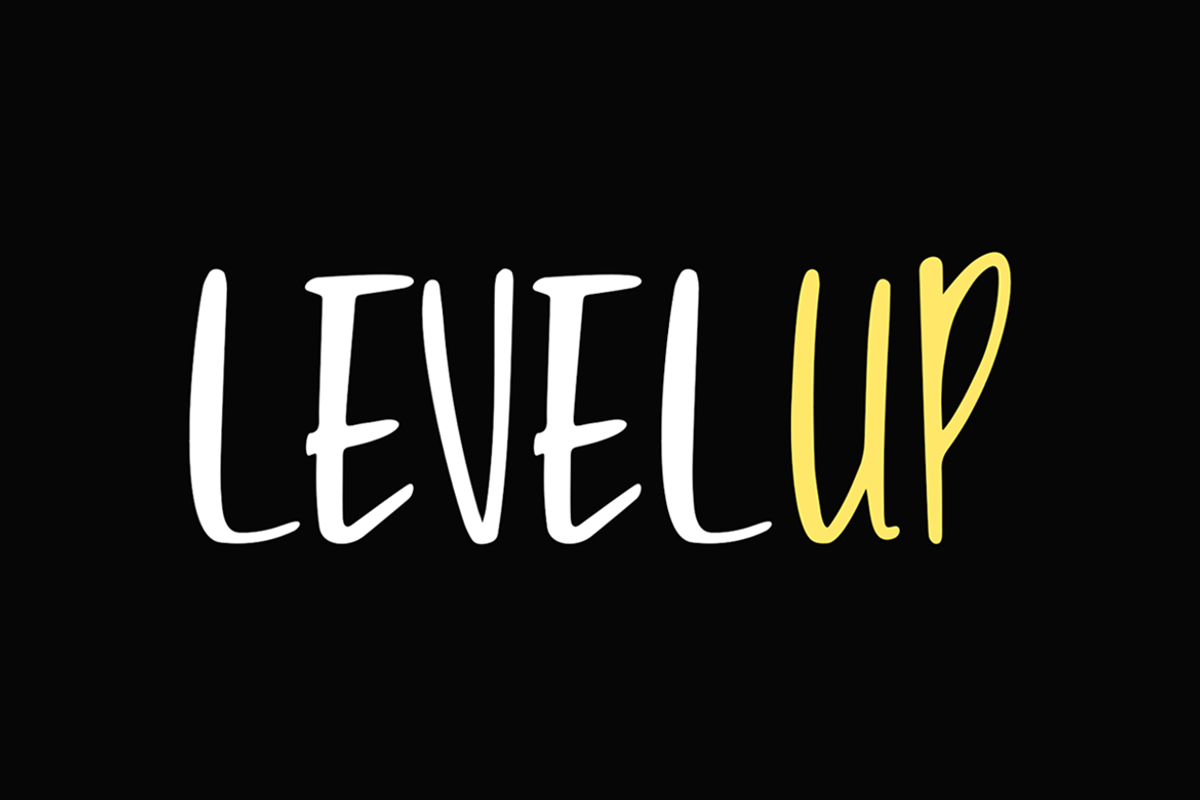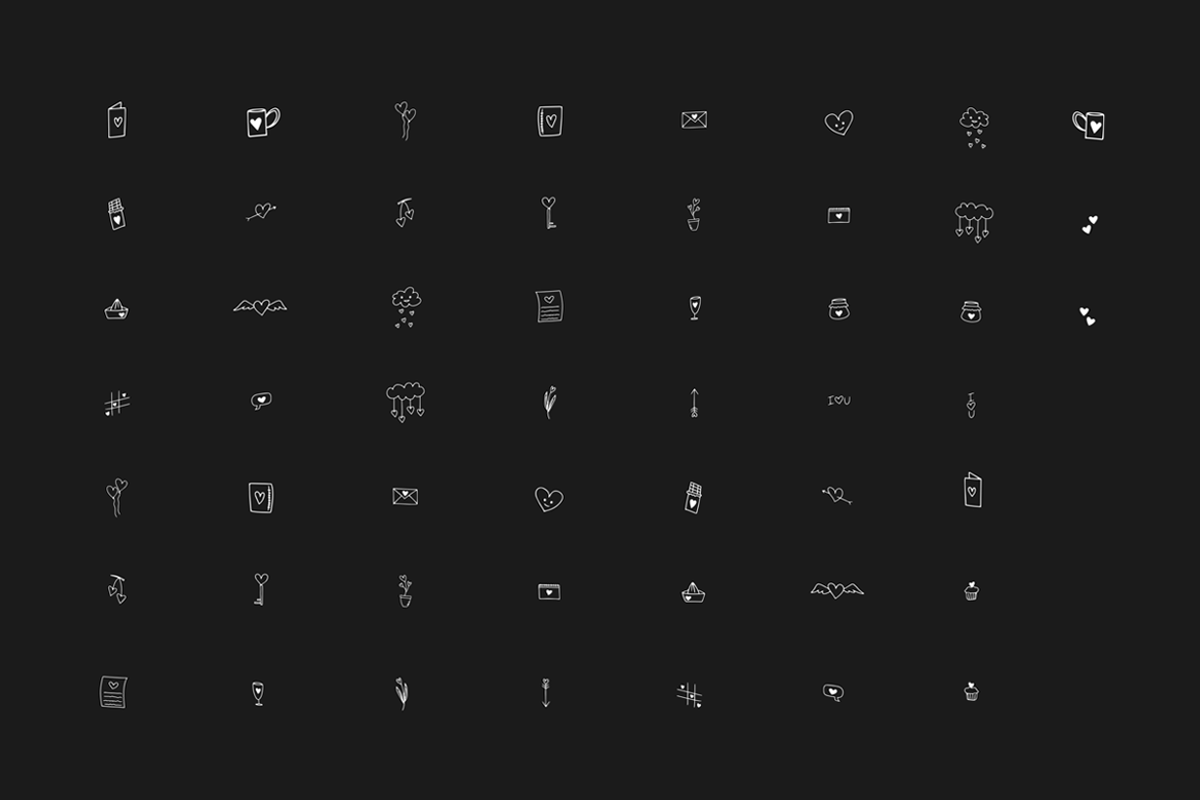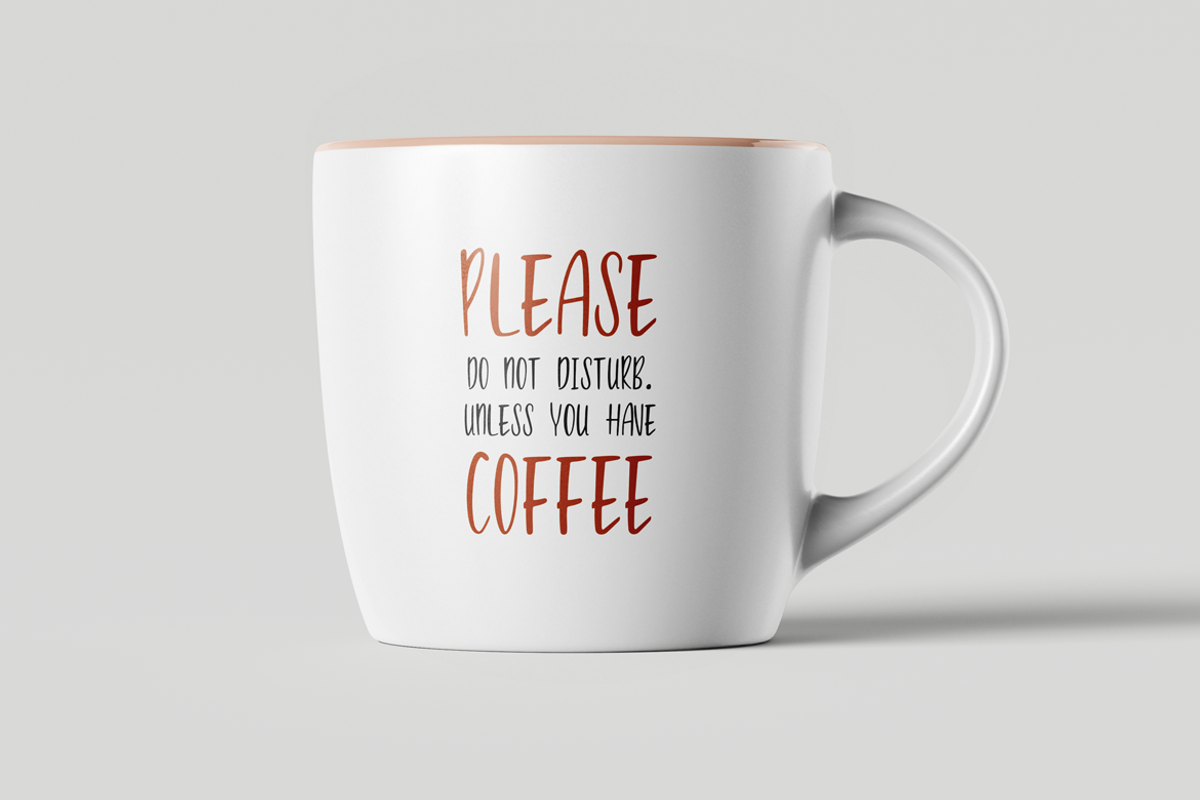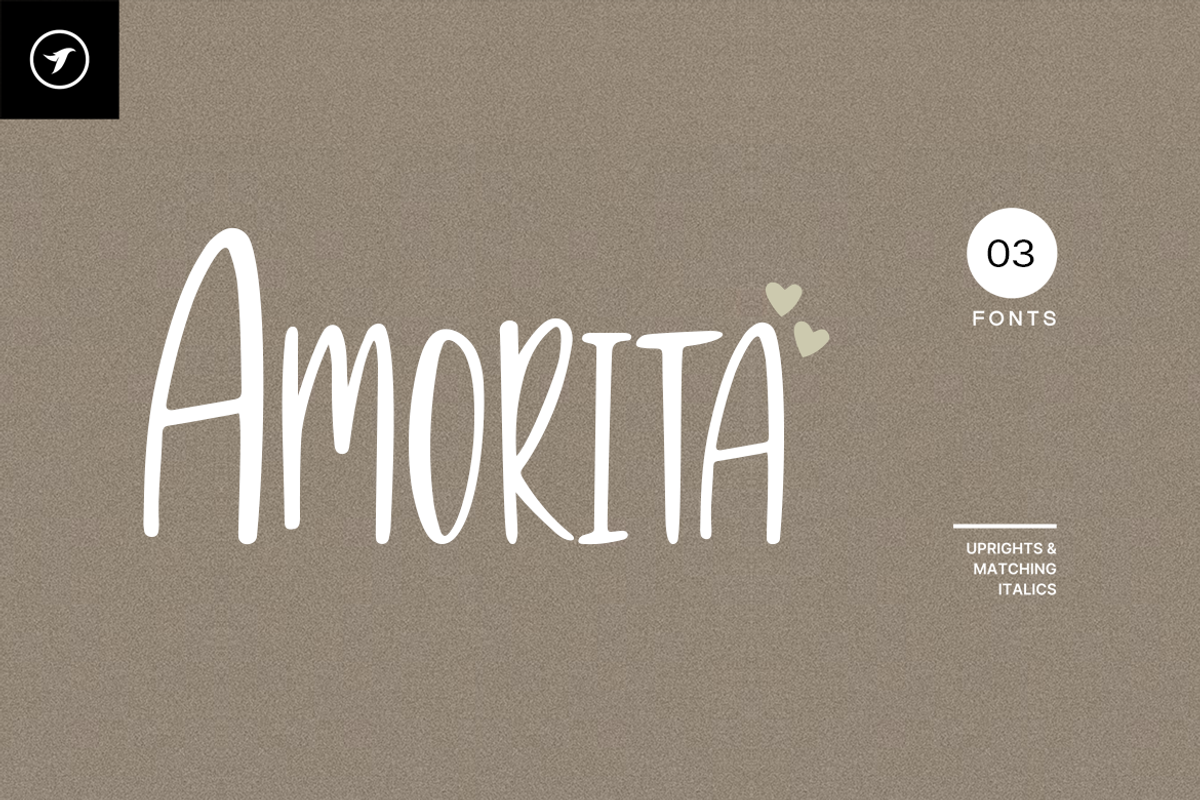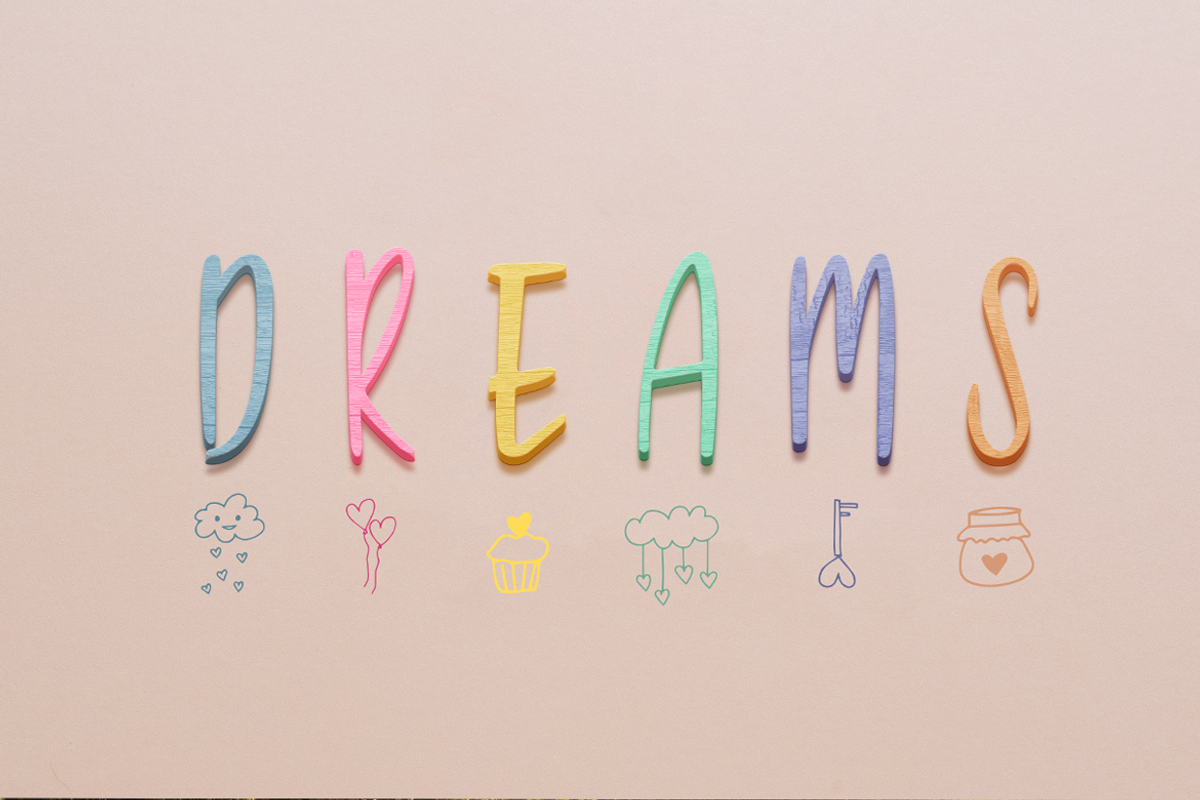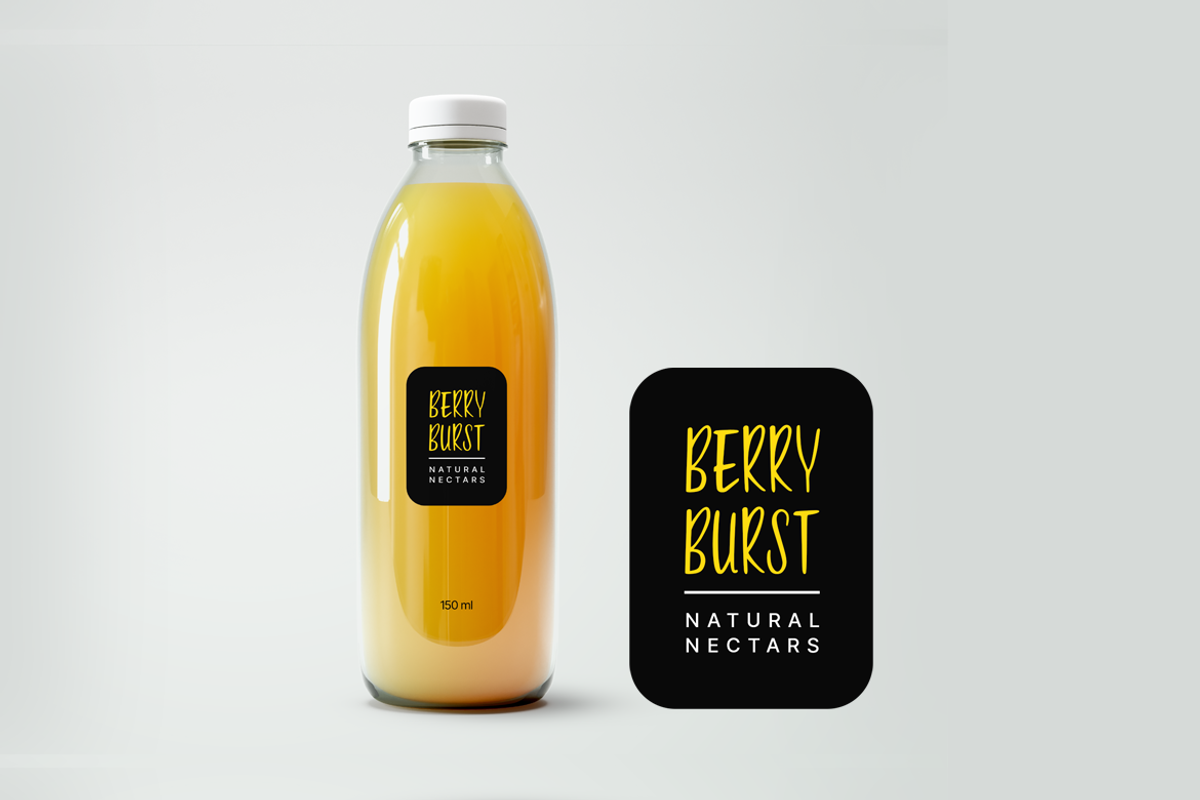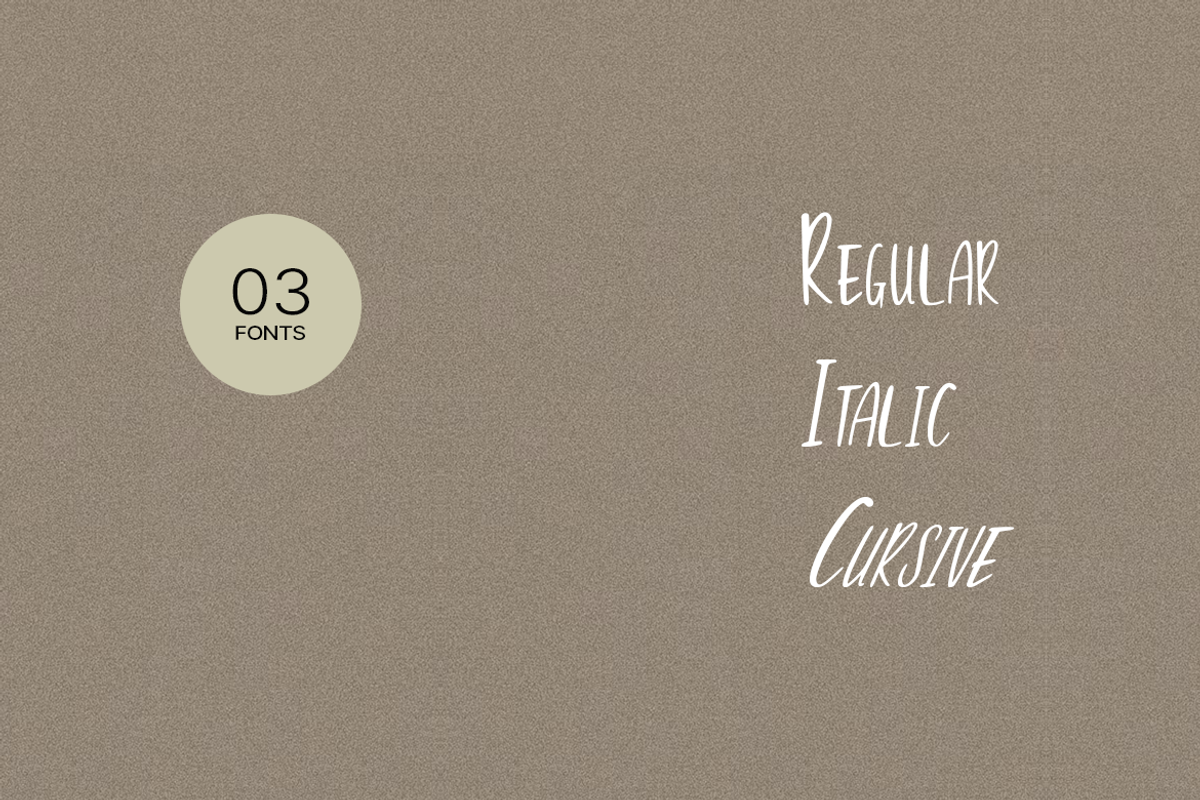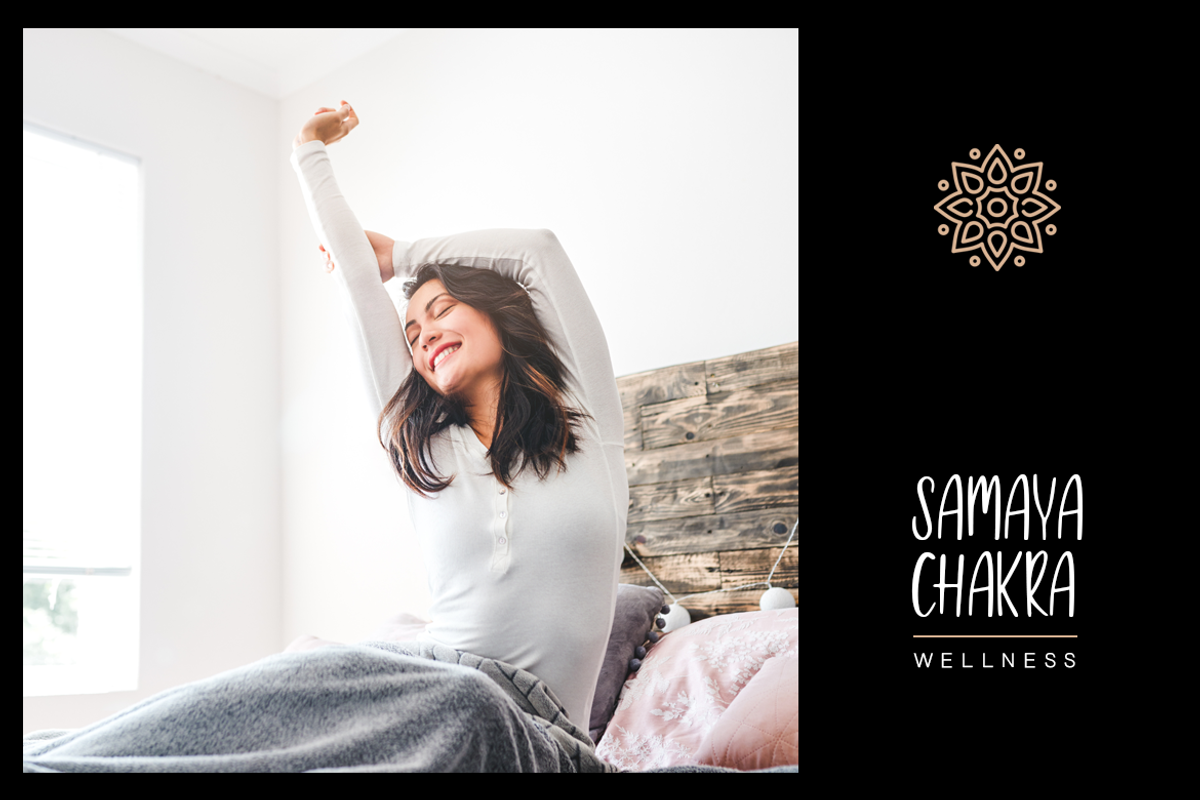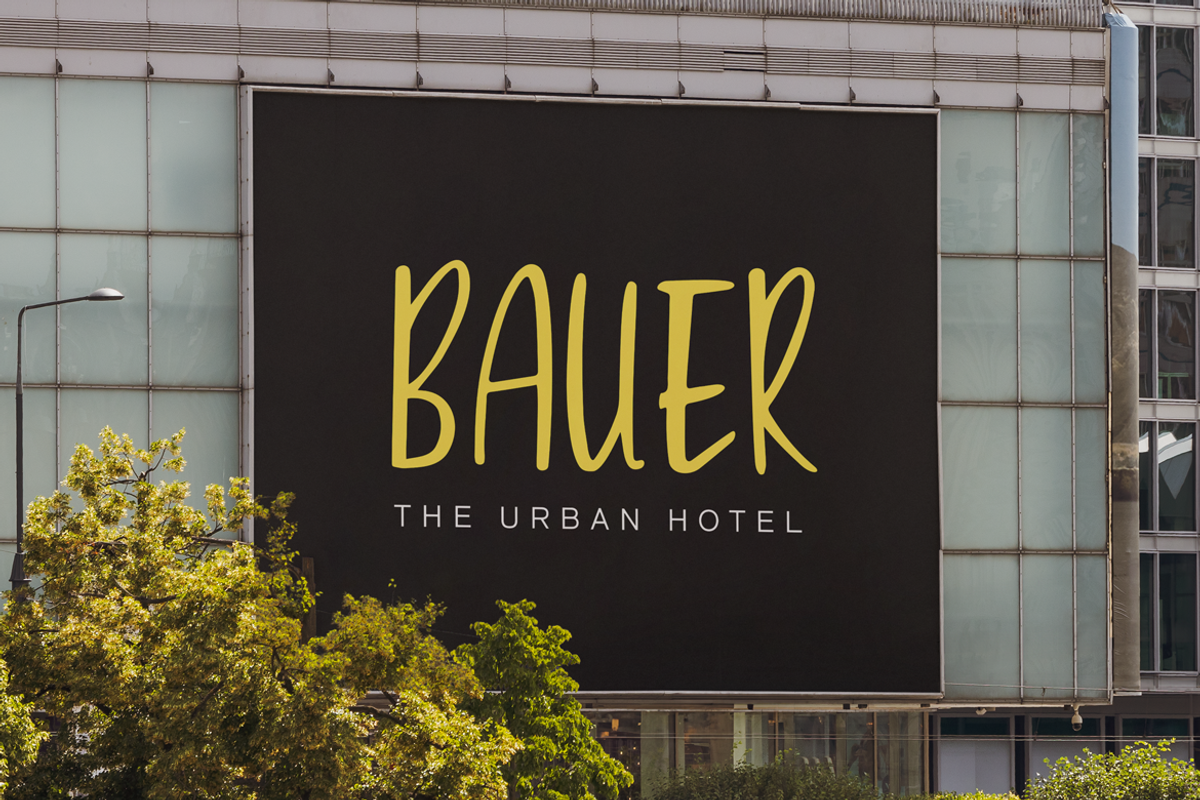
Amorita - Lovely Script with Doodles
Amorita is a beautiful and lovely handwritten brush font (also includes 52 cute doodles) for posters / marketing graphics / instagram story design / branding / logotype / decorations / signage / greeting cards / promotional designs and anything that needs the unique casual look. Amorita is completely handmade with perfection and aesthetics at its level best.
Includes 52 Hand-drawn doodles:
The typeface includes 52 hand-drawn 52 cute doodles as an additional feature. These can be activated by choosing the Stylistic Alternatives option within your design softwares.
Advanced Kerning & Extended Character Sets:
We have performed advanced, in-depth kerning to make sure the font looks amazing on all possible letter combinations. The font includes extended language support including Western European & Central European sets with a total of 339 glyphs.